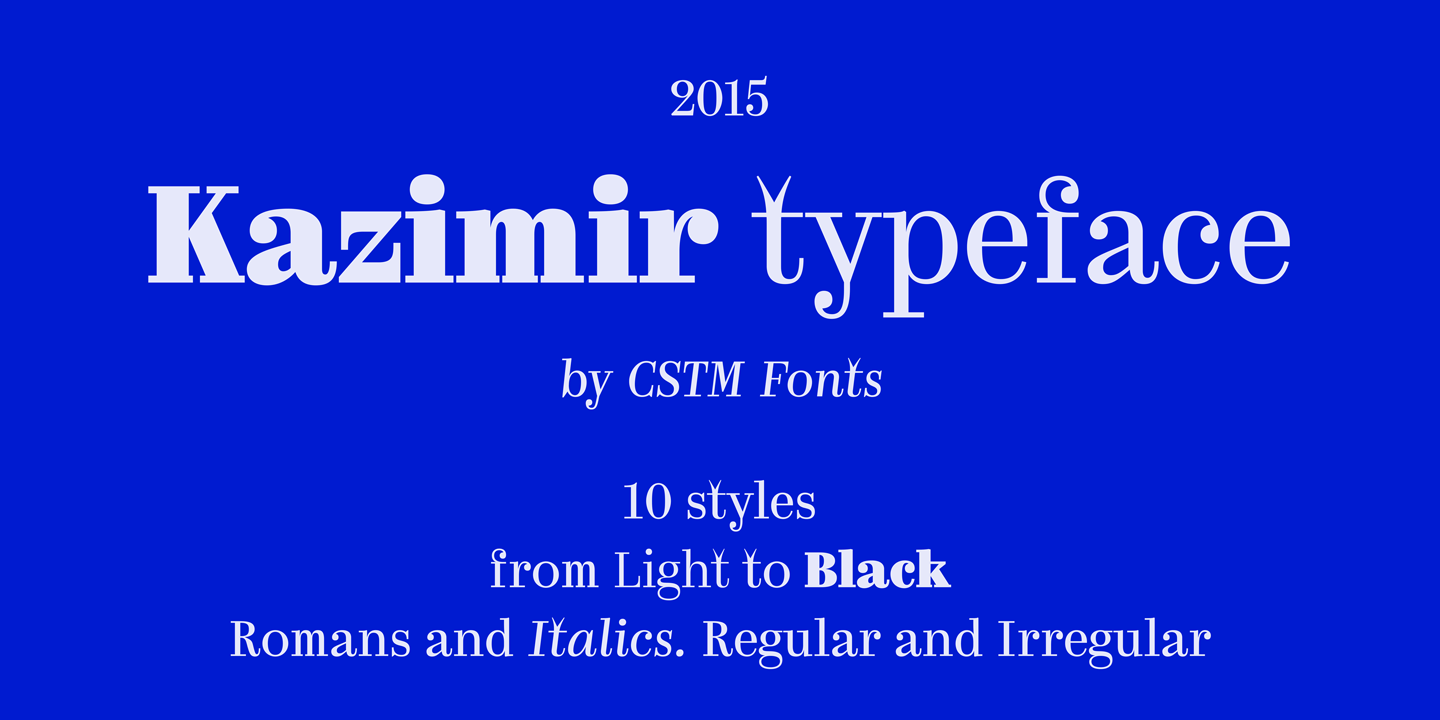
Kazimir
Kazimir Font Family
The Kazimir typeface was created by Yury Ostromentsky & Ilya Ruderman in 2015. This static contrast serif typeface has five styles in five weights: from Light to Black. Kazimir typeface is the new way to show Russian book & magazine typography from late XIX to early XX century, especially the typeface of “The History of Russian Philology” of P. N. Polevoy, published by A. F. Marx Publishing House in 1900. For a modern viewer the typography of those years seems unusual and kind of naive. When we take a book or a magazine from that time it invokes a “They don’t do that anymore” feeling. Kazimir combines the typographic features of that period with contemporary aesthetics. Kazimir has two stylistic sets — Regular & Irregular in both Roman & Italic styles. The Regular set (the default one) is a more modern character set, and the Irregular one has more display characters. In Adobe programs you can choose the set in the OpenType menu: “Stylistic set / Set 1”. You may use Regular & Irregular characters separately or combine them in any way you want. Kazimir is good for both short texts and headlines. It contains ligatures, case sensitive forms and extra pre-revolutionary symbols.